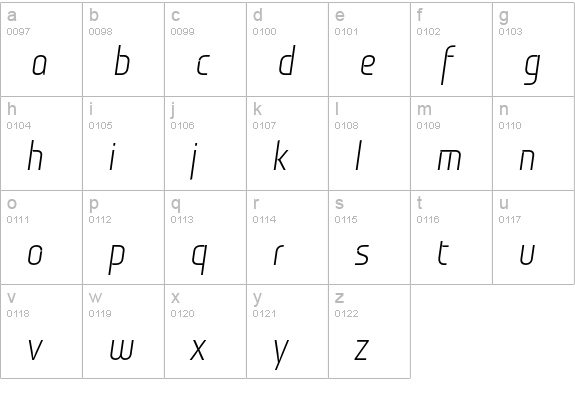
Monitorica Italic Font Details
Monitorica Italic is a distinctive, italic variant in the Monitorica typeface family \xE2\x80\x94 well suited to design and typography projects.
Monitorica Italic is a stunning font that exudes elegance and sophistication. Its sleek curves and slanted letterforms add a touch of modernity to any design project. Designed with meticulous attention to detail, this font is perfect for those who want to make a bold statement. With its unique italic style, Monitorica Italic offers a distinctive look that sets it apart from other fonts. Its fluid lines and graceful angles create a sense of movement that adds dynamism to any text. Whether used for headings, titles, or body text, this font effortlessly captures attention and enhances readability. One of the best things about Monitorica Italic is that it is free to download. You can easily access this incredible font at FontsMarket.com, where it is available for anyone to enjoy. This means that you can add a touch of elegance to your designs without having to worry about any additional costs. Whether you are a professional designer, a creative enthusiast, or someone in need of a stylish font for personal use, Monitorica Italic is the perfect choice. Its versatility allows it to be used in a wide range of design projects, from websites and logos to invitations and advertisements. So why wait? Download Monitorica Italic today from FontsMarket.com and elevate your designs to new heights. With its free availability and exceptional design, this font is a must-have for anyone looking to make a lasting impression.